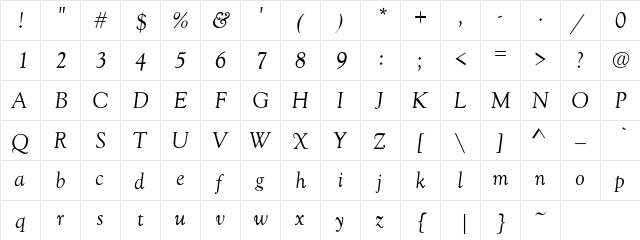
Goudy-Normal-It Regular Font Preview
Goudy-Normal-It Regular
Design Context for Goudy-Normal-It Typeface
Goudy-Normal-It is a composed and adaptable typeface that performs quietly and consistently across a wide range of design contexts.
Pro Tip: Use Goudy-Normal-It in both headline and body roles to test its range before committing to a single application.